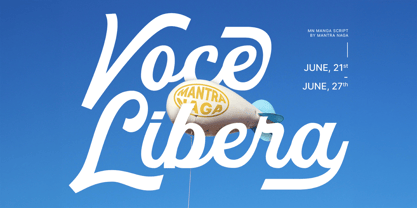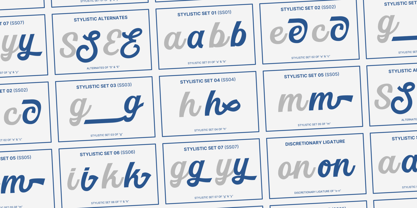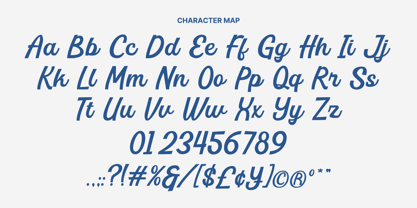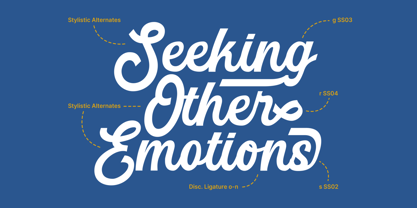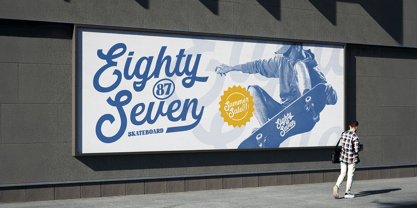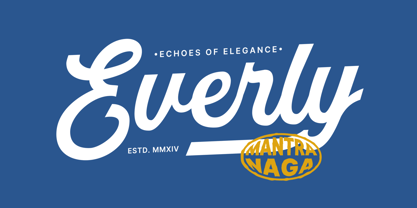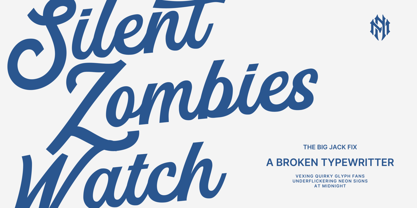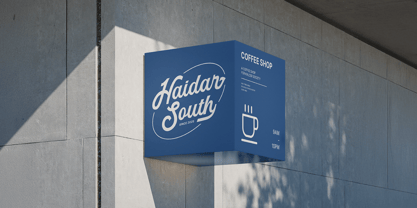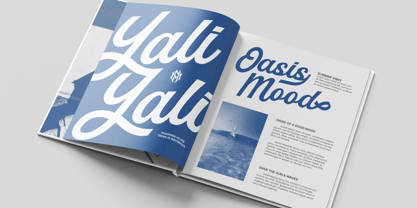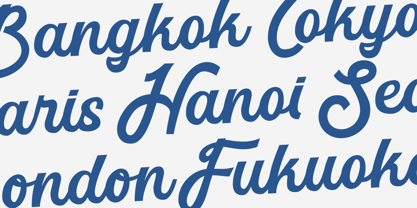
MN Managa Script
by Mantra Naga Studio
The MN Managa Script Font Family was designed by Fredo Eka Pratama and published by Mantra Naga Studio. MN Managa Script contains 1 styles. More about this family
MN Managa Script is a handwritten-style script font with flat stroke endings that retain an authentic hand-drawn character. It includes 543 glyphs, featuring 8 sets of stylistic alternates, and supports 90 languages.
Designed for striking headlines, distinctive logotypes and branding, eye-catching packaging, merchandise, and any display use, Managa Script offers versatility without sacrificing personality.
“Managa” is an acronym for mantra naga, marking our first special-edition type project.